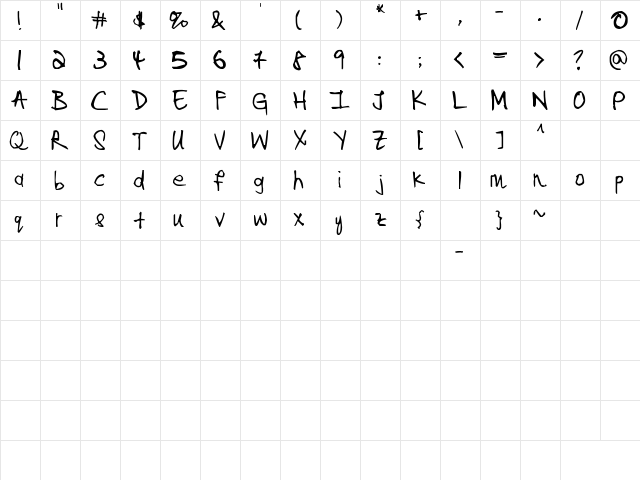
Ulin Regular
Design Context for Ulin Typeface
Ulin is a composed and adaptable typeface that performs quietly and consistently across a wide range of design contexts.